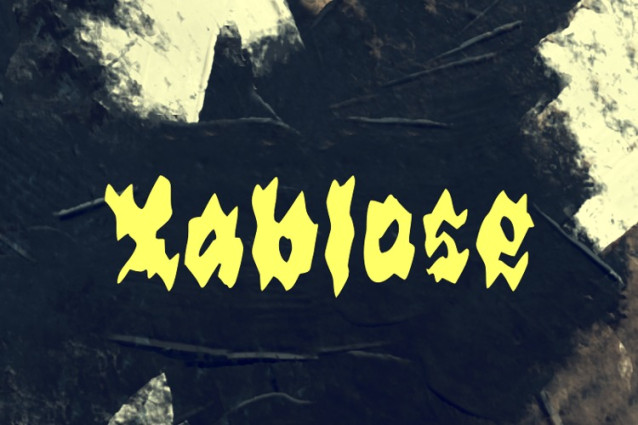
Xablose Font
Xablose Font, perfectly fit for branding, logo, wedding things, greeting cards, fashion, lookbook, marketing promotion, anytime you want to look fancy elegant but still casual.